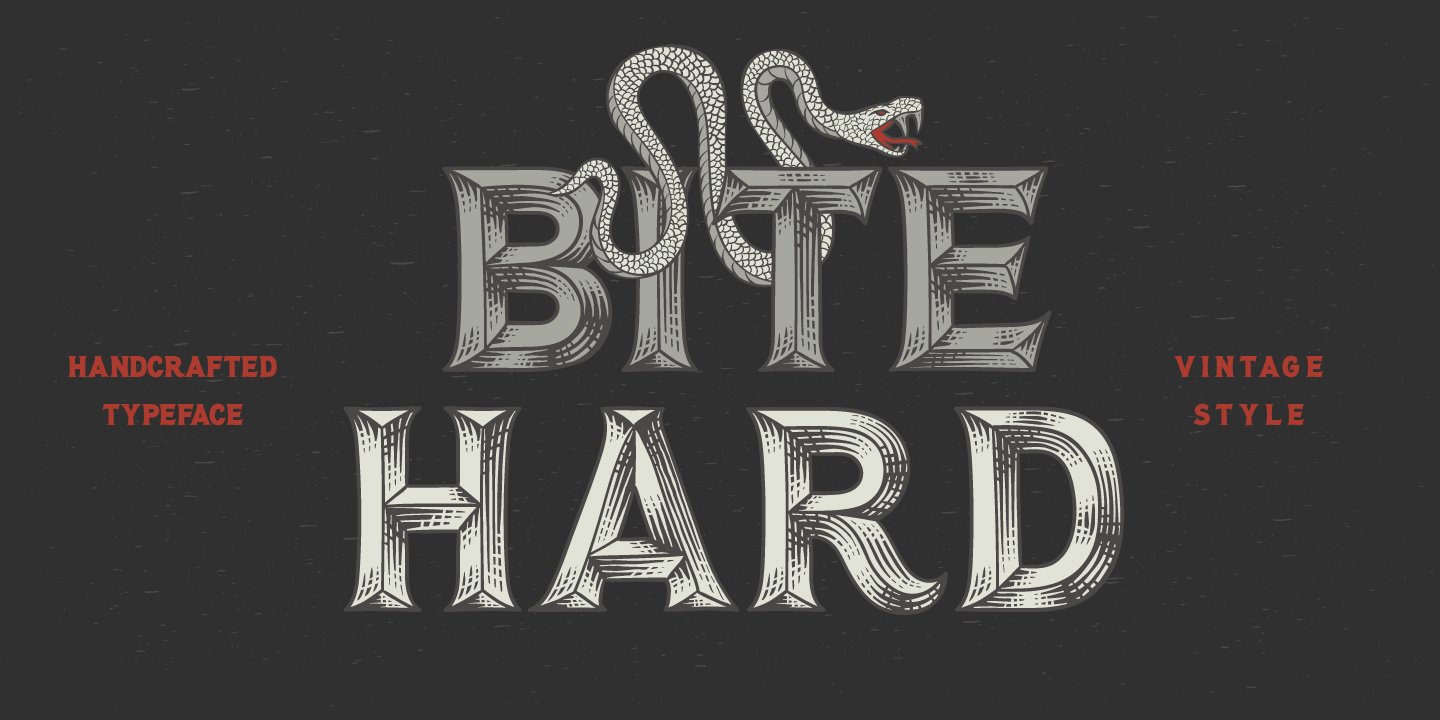
You can use Bite Hard Font in action movie posters, sports branding, music album covers, energy drink packaging, streetwear logos, gaming graphics, and any project that demands attention with a powerful visual punch. This font doesn’t whisper — it roars.
What makes Bite Hard so exciting is its fearless attitude. Every letter is built like a visual shout, loaded with edge, strength, and momentum. It’s ideal for brands and creatives who want to break the silence and get loud — with style.
The Bite Hard Font family includes intense styles like Bite Hard Regular, Bite Hard Grunge, Bite Hard Shadow, and Bite Hard Inline, giving you all the tools to create a visually dominant and layered typographic aesthetic.
If you're ready to strike hard with your design and leave a lasting impression, Bite Hard Font Free Download is your ultimate weapon. Download it today and bring raw energy, attitude, and bold confidence to your next visual masterpiece.